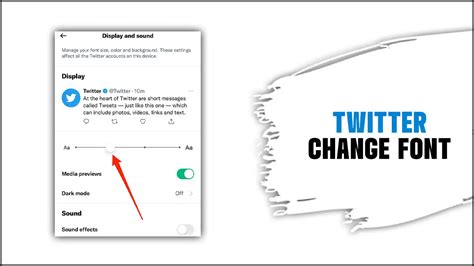
Change Your Twitter Font Easily
Hey guys! Ever scrolled through Twitter and thought, “Man, I wish I could make my tweets look a bit more unique ?” Well, you’re in luck! Changing your Twitter font might seem like a complex tech wizardry thing, but trust me, it’s way simpler than you think. We’re going to dive deep into how you can spice up your Twitter profile and tweets with different fonts. You might be wondering, “Can I actually change the font on Twitter?” The answer is a resounding yes , but with a little caveat. Twitter itself doesn’t offer a built-in feature to change your font directly within the app or on the website. That means we have to get a little creative and use some awesome third-party tools. These tools are super handy and can generate text in various styles that you can then copy and paste right into your tweets or bio. It’s like having a secret weapon to make your profile stand out in the endless scroll of the Twitter feed. We’ll cover everything from the simplest methods to some slightly more advanced tricks, so stick around! Whether you’re looking for bold text, italics, or something completely out there, there’s a font generator out there for you. This guide is all about empowering you to express yourself better on the platform. So, let’s get started on making your Twitter presence visually pop!
Why Change Your Twitter Font?
Alright, so why would you even bother changing your Twitter font, right? It’s a valid question! For starters, let’s talk about standing out . In the fast-paced world of social media, especially on Twitter with its constant stream of updates, getting noticed is key. Using a unique font can instantly make your tweets and profile more eye-catching. It’s like wearing a cool outfit in a crowd – people are more likely to look your way. Think about your bio, for instance. A well-chosen font can convey your personality or brand identity more effectively. Are you playful and quirky? Maybe a fun, cursive-like font would work. Are you more serious and professional? Perhaps a sleek, bold font is the way to go. Beyond just aesthetics, changing your font can also be a way to express your individuality . It’s a small act of rebellion against the default, a way to say, “This is me, and I like to do things a little differently.” For businesses and influencers, using custom fonts can be a part of their brand consistency . If your brand already uses specific fonts in its marketing materials, extending that to your Twitter presence can create a more cohesive and recognizable brand image. It shows attention to detail and professionalism. Plus, let’s be honest, sometimes the default font can be a bit boring. Variety is the spice of life , and changing your font adds a little dash of excitement to your otherwise standard Twitter experience. It can make reading your own tweets more enjoyable, and encourage others to engage with your content. It’s a subtle yet powerful way to make a statement. So, whether you’re looking to boost engagement, strengthen your brand, or just have a bit of fun, changing your Twitter font is a great way to do it. It’s a simple tweak that can have a surprisingly big impact on how you and your content are perceived online. Get ready to make your Twitter feed a little less… vanilla .
How to Change Your Twitter Font: The Easy Way
Okay, so you’re convinced you want to change your Twitter font, but how do you actually do it? The easiest and most popular method involves using online font generator tools . These are websites specifically designed to take your plain text and convert it into various fancy font styles. They’re incredibly user-friendly, so even if you’re not a tech whiz, you’ll be able to master them in no time. Here’s the general process, guys:
1. Find a Font Generator: A quick Google search for “Twitter font generator” or “fancy text generator” will bring up tons of options. Some popular ones include LingoJam, YayText, and Instagram Fonts (yes, it works for Twitter too!). Don’t be overwhelmed by the choices; they all work pretty similarly.
2. Type Your Text: On the generator website, you’ll see a text box. Simply type the text you want to use – this could be your tweet, your bio, or even a reply. Just type it out as you normally would.
3. Choose Your Font Style: As you type, the generator will instantly show you a preview of your text in dozens, sometimes hundreds, of different fonts. Scroll through the options and find one you like. You’ll see everything from bold and italic versions to more decorative styles like script, gothic, or even monospace.
And that’s pretty much it! Your text should appear on Twitter in the new font style you selected. It’s super straightforward and doesn’t require any special software or downloads. These tools generate text using special Unicode characters, which is why they work across different platforms and browsers. Just remember that not all devices or browsers might display every single Unicode character perfectly, but the vast majority of common styles will look great. So go ahead, experiment, and have fun making your Twitter content pop!
Understanding Unicode Fonts for Twitter
So, how exactly do these font generators work their magic, you ask? It’s all about Unicode . Now, don’t let that word scare you off; it’s actually a pretty cool system. Unicode is an international standard that assigns a unique number, called a code point, to every character, symbol, and emoji used in writing systems worldwide. Think of it as a universal character set. The default font you see on Twitter (and most websites) uses standard characters that your computer and browser know how to display. However, what these font generator tools do is leverage alternative Unicode characters that look like standard letters but are technically different. For example, the letter ‘A’ has a standard Unicode code point. But there’s another Unicode character that looks exactly like ‘A’ but has a different code point, often found in the Mathematical Alphanumeric Symbols block. So, when you copy and paste text from a font generator, you’re not actually changing the font itself in the way you would in a word processor. Instead, you’re replacing the standard characters with these special Unicode characters. Your browser or Twitter then renders these characters as they appear in their respective Unicode blocks, giving you that fancy font effect. This is why these fonts are generally compatible across different devices and operating systems – as long as the device supports Unicode (which, let’s face it, almost all modern devices do), it can display these characters. However, there’s a small catch, guys. Because these are technically different characters, they might not be recognized by every single system or application. Screen readers used by visually impaired individuals might have trouble interpreting these special characters, and search engines might not index them as effectively as standard text. Also, Twitter itself might have limitations on the length of these special characters in certain areas like bios. It’s always a good idea to test how your chosen font looks on different devices if possible, and to be mindful of accessibility and SEO implications. But for the most part, using Unicode fonts is a fun and safe way to add a bit of flair to your Twitter posts and profile!
Best Practices for Using Custom Twitter Fonts
Now that you know how to change your Twitter font and understand the tech behind it, let’s chat about some best practices to make sure you’re using these custom fonts like a pro. While it’s super fun to experiment, there are a few things to keep in mind to ensure your tweets are readable, accessible, and effective. First off, readability is king , folks. Some of these fancy fonts can be really hard to read, especially on smaller mobile screens. Opt for styles that are clear and easy on the eyes. Avoid overly decorative or script-like fonts for important information or for your main tweets if you want people to actually read what you’re saying. Think about your audience – are they likely to appreciate a funky font, or will it just be a barrier to communication? Consider accessibility . As mentioned before, not all screen readers can interpret special Unicode characters properly. If you want your content to be accessible to everyone, stick to standard fonts or use custom fonts sparingly for less critical elements, like a decorative flourish in your bio rather than the main text. Check for compatibility . While Unicode is widely supported, there’s always a chance some users might see weird symbols instead of your chosen font. It’s a good idea to test your font on a few different devices or browsers if you can, or at least stick to the more common and widely supported styles. Be mindful of Twitter’s rules . While using Unicode fonts isn’t against Twitter’s terms of service, spamming tweets with unreadable fonts or using them for malicious purposes could potentially flag your account. Use them responsibly. Know your audience and your goal . Are you trying to be playful and quirky? A more unique font might be perfect. Are you trying to sound professional and authoritative? Stick to cleaner, bolder styles. Don’t use a super fancy font just for the sake of it; make sure it aligns with the message you’re trying to convey. Don’t overdo it . A little bit of flair goes a long way. Using a custom font for your entire bio might be okay, but peppering every single tweet with complex fonts can be overwhelming and annoying for your followers. Use them strategically for impact. By following these tips, you can use custom Twitter fonts to enhance your profile and tweets without sacrificing readability or alienating your audience. It’s all about finding that sweet spot between creativity and clarity, guys!
Are there risks to changing your Twitter font?
Let’s get real for a second, guys. While changing your Twitter font is mostly harmless fun, there are a few potential risks and downsides you should be aware of. It’s not all sunshine and fancy letters! The biggest concern is readability and accessibility . As we touched upon, many of these Unicode-based fonts aren’t standard characters. This means that devices, browsers, or assistive technologies (like screen readers used by visually impaired individuals) might not interpret them correctly. Someone using a screen reader might hear a series of confusing symbols or have the text read out in a standard, unappealing way, completely missing the stylistic effect you were going for. This can inadvertently exclude a portion of your audience. Another potential issue is search engine optimization (SEO) . While Twitter itself might display the text, search engines might not crawl or index these non-standard characters as effectively as regular text. This could potentially impact the discoverability of your tweets or profile if you rely on search traffic. Think about it: if Google can’t properly read your bio or tweets, how can it rank them effectively? Furthermore, while not explicitly forbidden, excessive or spammy use of unreadable fonts could potentially be flagged by Twitter’s algorithms as unusual behavior, though this is less common for simple font changes. It’s more likely to happen if the font makes your text completely incomprehensible. Also, remember that not all devices and platforms render these fonts equally . What looks cool and stylish on your iPhone might appear as a jumble of boxes or question marks on an older Android device or a different operating system. This inconsistency can make your communication less effective and unprofessional. Finally, using overly complex or unprofessional-looking fonts can sometimes detract from your credibility . If you’re trying to build a professional brand or share serious information, a bubbly script font might not be the best choice and could make you seem less serious. So, while it’s fun to play around, always weigh the aesthetic appeal against potential drawbacks in terms of accessibility, SEO, consistency, and overall message clarity. It’s about being smart with your choices, not just flashy!
Wrapping It All Up: Make Your Twitter Shine!
So there you have it, guys! We’ve journeyed through the world of changing your Twitter font, from the super simple copy-paste method using online generators to understanding the underlying Unicode magic. We’ve also touched upon why you might want to do this – to stand out, express yourself, or keep your brand consistent. Remember, the key is to use these tools wisely . Prioritize readability and accessibility over just looking flashy. Stick to common, well-rendered fonts, and always consider your audience and the message you want to send. While you can’t change fonts in DMs, you can definitely jazz up your tweets and bio to make your profile pop. And hey, if text seems too small, you can always adjust the font size in your display settings for a more comfortable viewing experience. So go ahead, experiment with those font generators, find a style that speaks to you, and make your Twitter presence truly unique. Happy tweeting, and may your words always stand out!